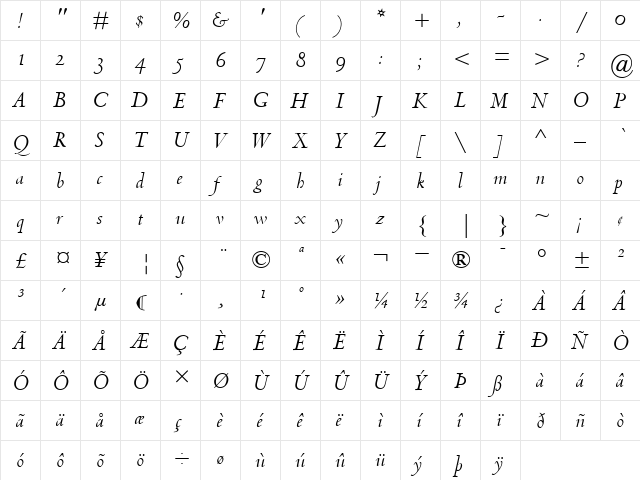
CentaurMTOldstyleFigures RomanItalic
Design Context for CentaurMTOldstyleFigures Typeface
CentaurMTOldstyleFigures carries the refined structure of traditional serif typography, with bracketed terminals and considered proportions that communicate credibility and craft. The slanted form adds forward momentum and visual energy.